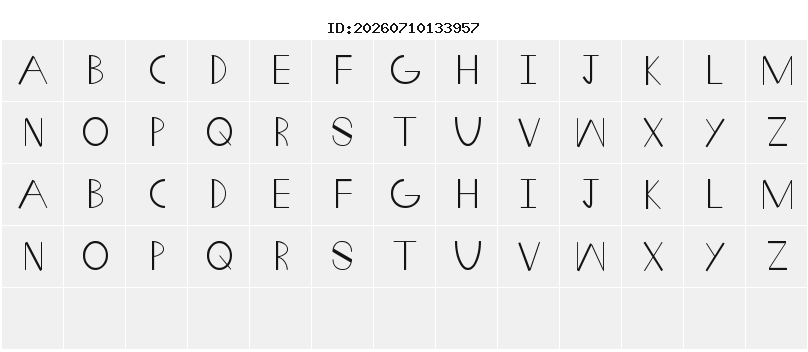
• Font Name: Fat Wedge
• Font ID: Fat Wedge:Version 1.00
• Full Font Name: Fat Wedge
• Version: Version 1.00 July 23, 2011, initial release
• PostScript Name: FatWedge
• Designer: Shane Sayers
Fat Wedge.ttf is a modern, elegant sans-serif font designed for ultimate readability and visual harmony. Perfect for branding, headlines, web design, and print materials.